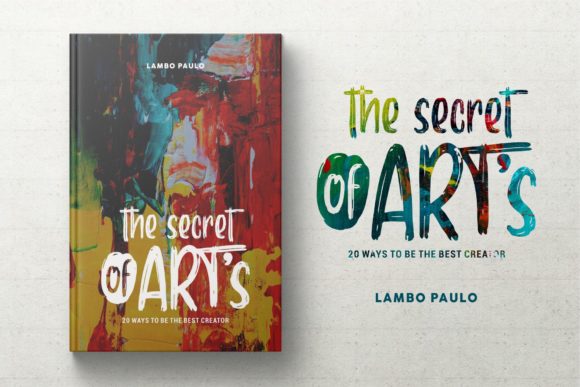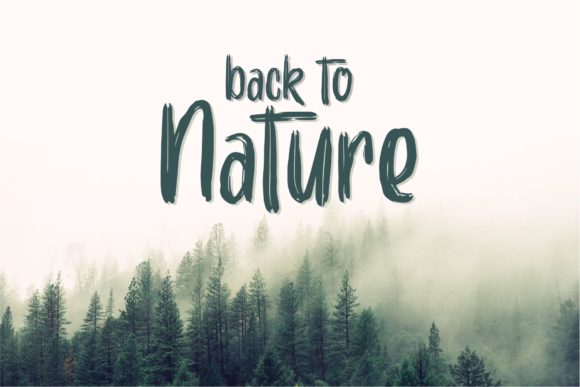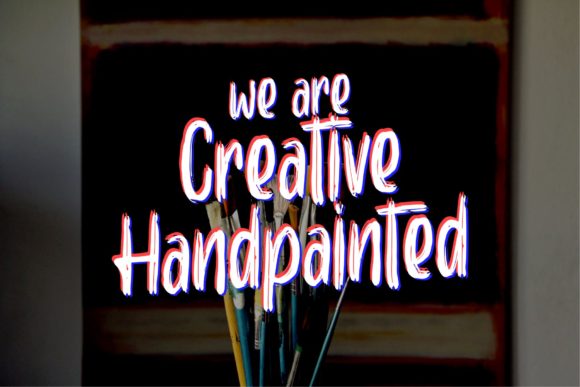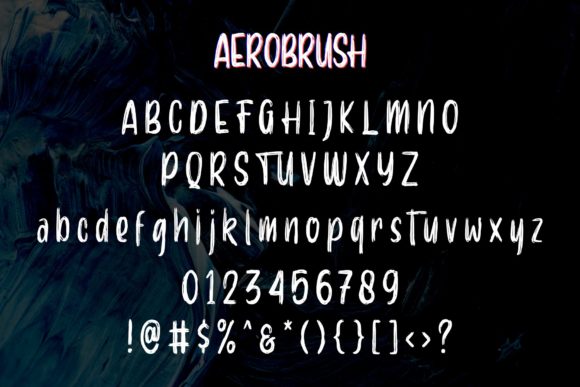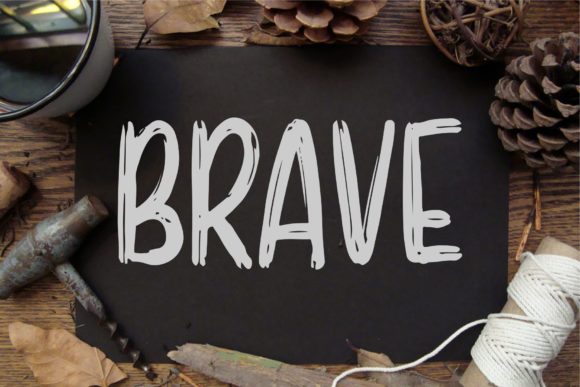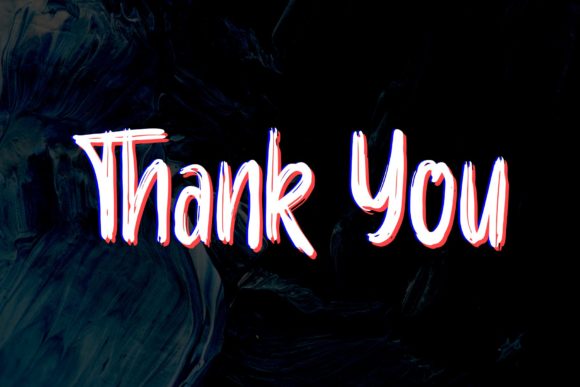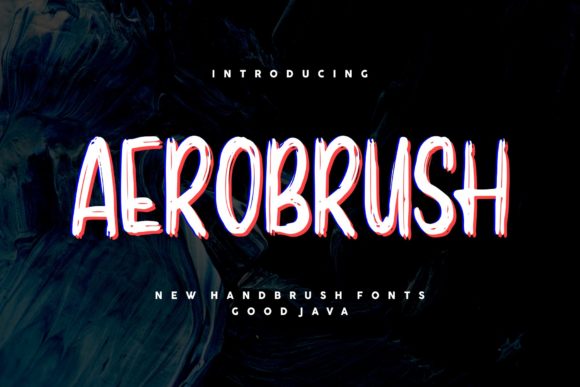
Aerobrush Font: Elevate Your Designs with a Fun and Bold Contemporary Style
Aerobrush is a fun and bold display font with a contemporary feel that’s taking the design world by storm. This unique and charming font is perfect for designers and crafters looking to add a touch of personality to their projects. Get inspired by its distinctive charm and take your designs to the next level!
What Makes Aerobrush Font So Special?
Aerobrush font is a one-of-a-kind typeface that boasts a fresh and modern aesthetic. Its bold and playful design makes it perfect for headlines, titles, and short text passages. The font’s unique charm lies in its subtle imperfections and handmade feel, which gives it a distinctly human touch.
Whether you’re working on a branding project, creating social media graphics, or designing a website, Aerobrush font is sure to make a statement. Its contemporary feel and versatility make it an excellent choice for a wide range of design applications.
Key Features of Aerobrush Font
- Bold and Playful Design: Aerobrush font features a bold and playful design that’s perfect for making a statement.
- Contemporary Feel: The font’s modern aesthetic makes it ideal for designs that require a fresh and contemporary look.
- Unique Charm: Aerobrush font’s subtle imperfections and handmade feel give it a distinctly human touch.
- Versatile: The font is suitable for a wide range of design applications, from branding and social media graphics to web design.
How to Use Aerobrush Font in Your Designs
Aerobrush font is incredibly easy to use and can be incorporated into your designs in a variety of ways. Here are a few ideas to get you started:
- Headlines and Titles: Use Aerobrush font to create bold and eye-catching headlines and titles that grab attention.
- Branding and Logo Design: The font’s unique charm and contemporary feel make it perfect for branding and logo design projects.
- Social Media Graphics: Add a touch of personality to your social media graphics with Aerobrush font.
- Web Design: Use the font to create visually appealing and engaging website headers, titles, and short text passages.
Tips and Tricks for Working with Aerobrush Font
To get the most out of Aerobrush font, here are a few tips and tricks to keep in mind:
- Experiment with Font Sizes: Aerobrush font looks great in a variety of font sizes, so don’t be afraid to experiment and find the perfect size for your design.
- Play with Color: The font’s bold design makes it perfect for use with bright and bold colors.
- Use it Sparingly: While Aerobrush font is perfect for headlines and titles, it’s best to use it sparingly to avoid overwhelming the reader.
Aerobrush font is a fun and bold display font with a contemporary feel that’s sure to elevate your designs. Its unique charm, versatility, and ease of use make it an excellent choice for designers and crafters looking to add a touch of personality to their projects. So why not give Aerobrush font a try and see how it can inspire your next design project?
With its bold and playful design, Aerobrush font is the perfect way to make a statement and take your designs to the next level. Get inspired by its distinctive charm and start creating stunning designs that showcase your creativity and style.